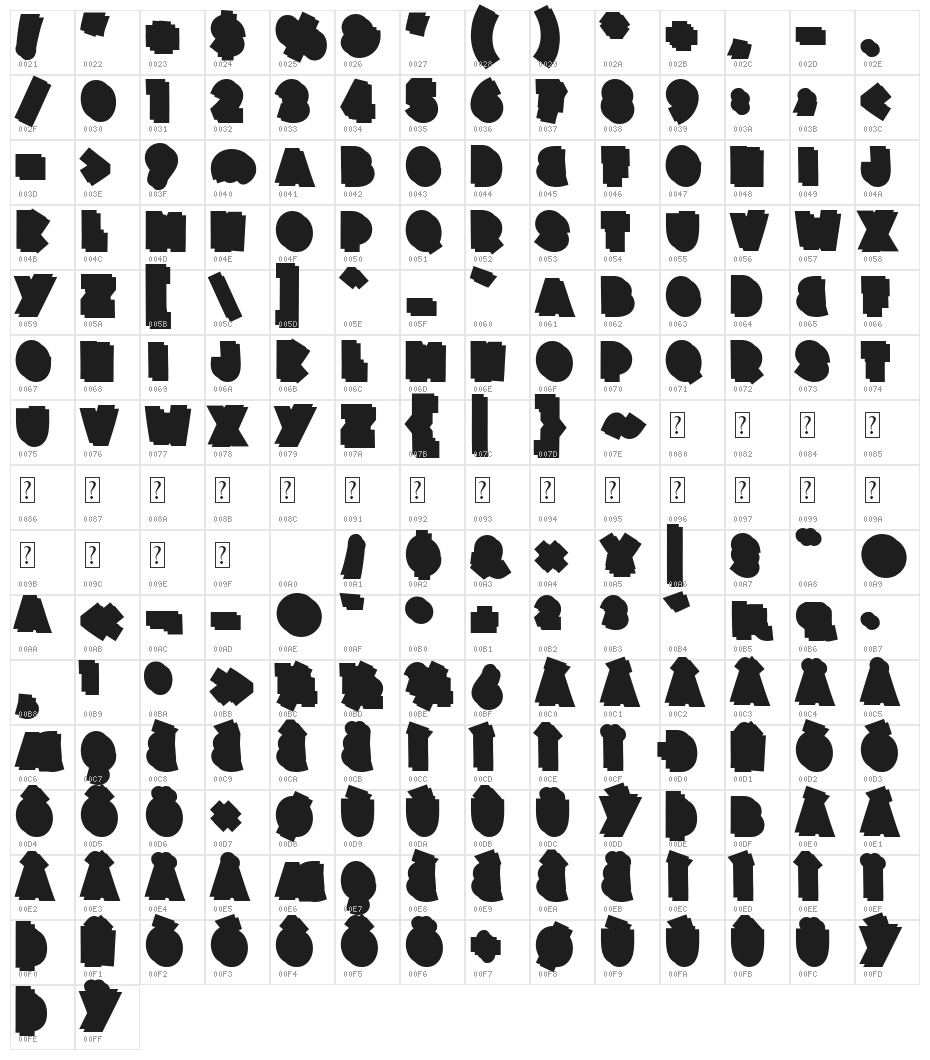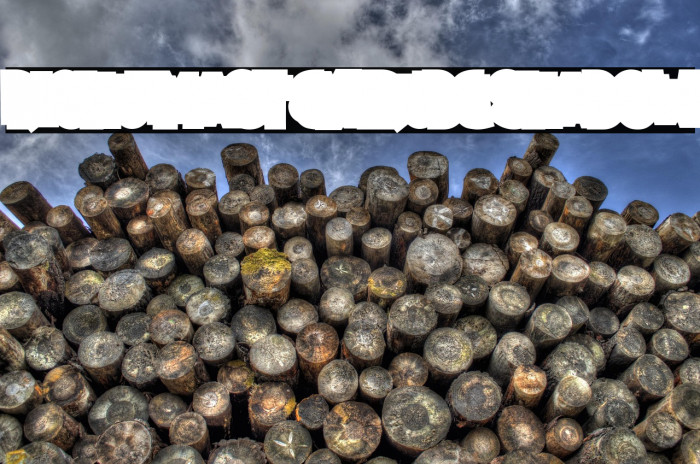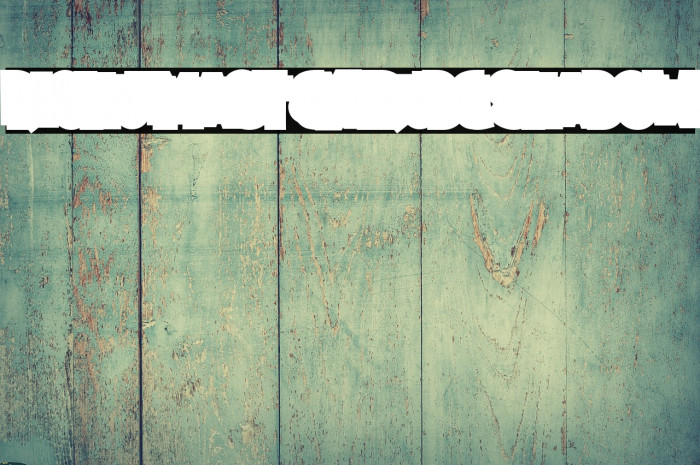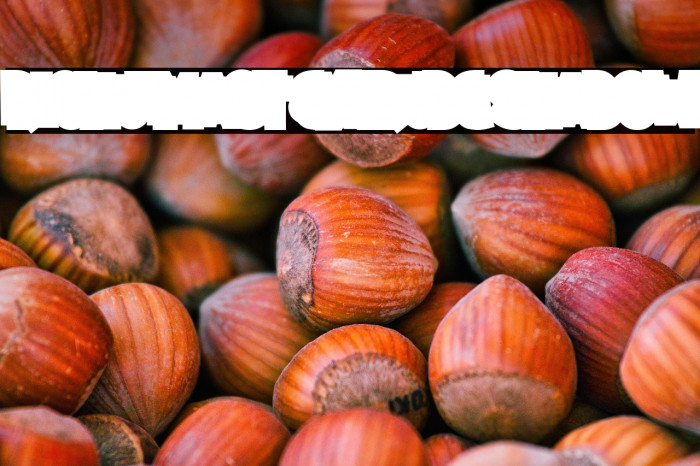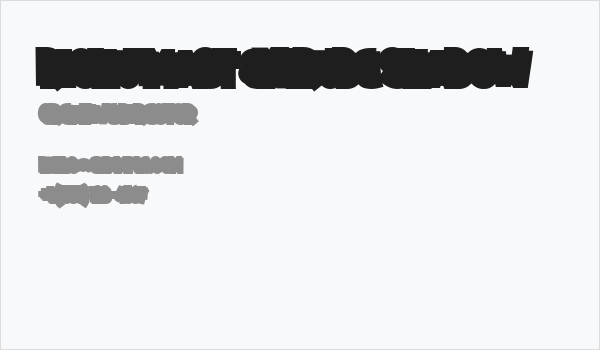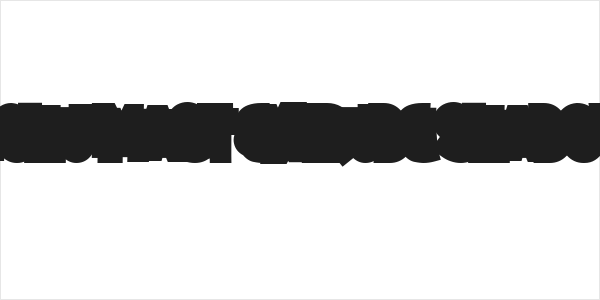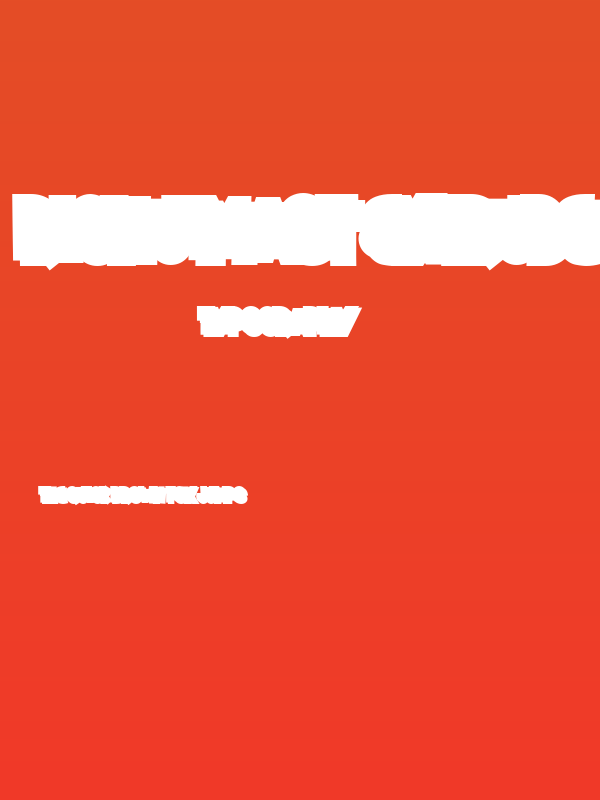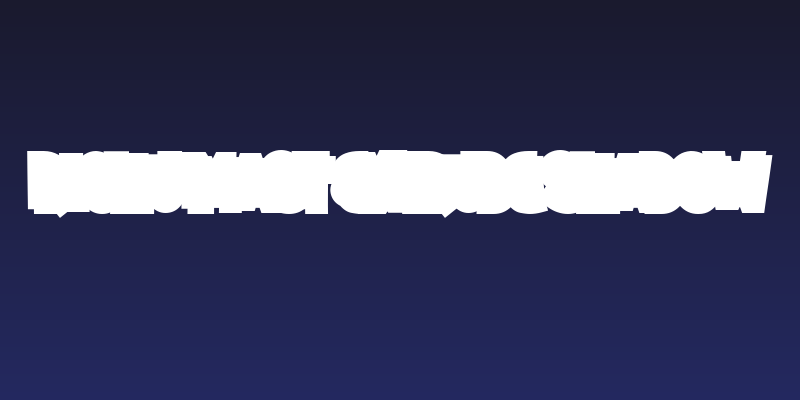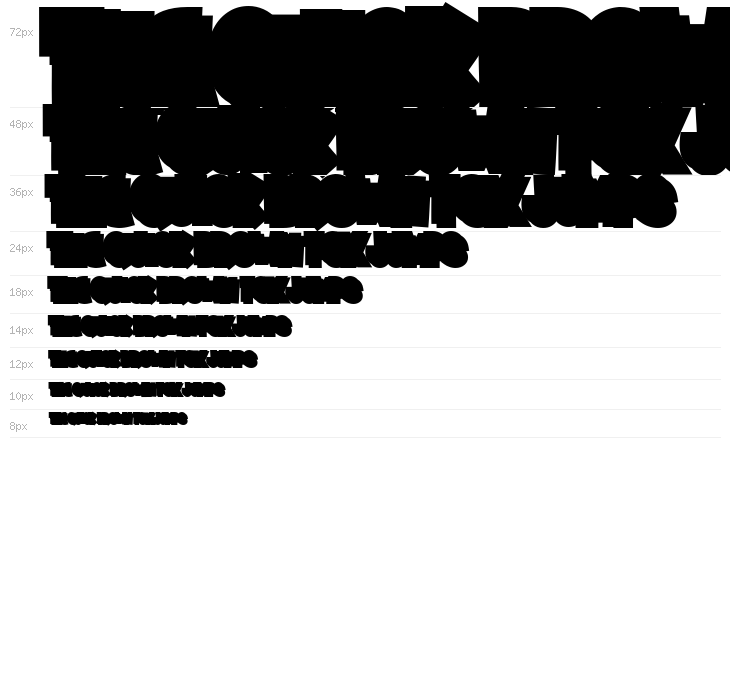
Richu Mast Extrude Shadow Font
Richu Mast Extrude Shadow Description
This bold and striking font features a strong extruded shadow effect, giving it a three-dimensional appearance. The characters are thick and robust, with a consistent width that adds to its impactful presence. The shadow creates a sense of depth, making the text stand out prominently. The uppercase and lowercase letters maintain a uniform style, enhancing readability while still offering a decorative flair. This font is ideal for designs that require a bold statement, such as posters, headlines, or branding materials. Its unique style captures attention and conveys a sense of strength and confidence.
| Proposed Projects | Ideal for posters, headlines, branding, and any design needing a bold statement. |